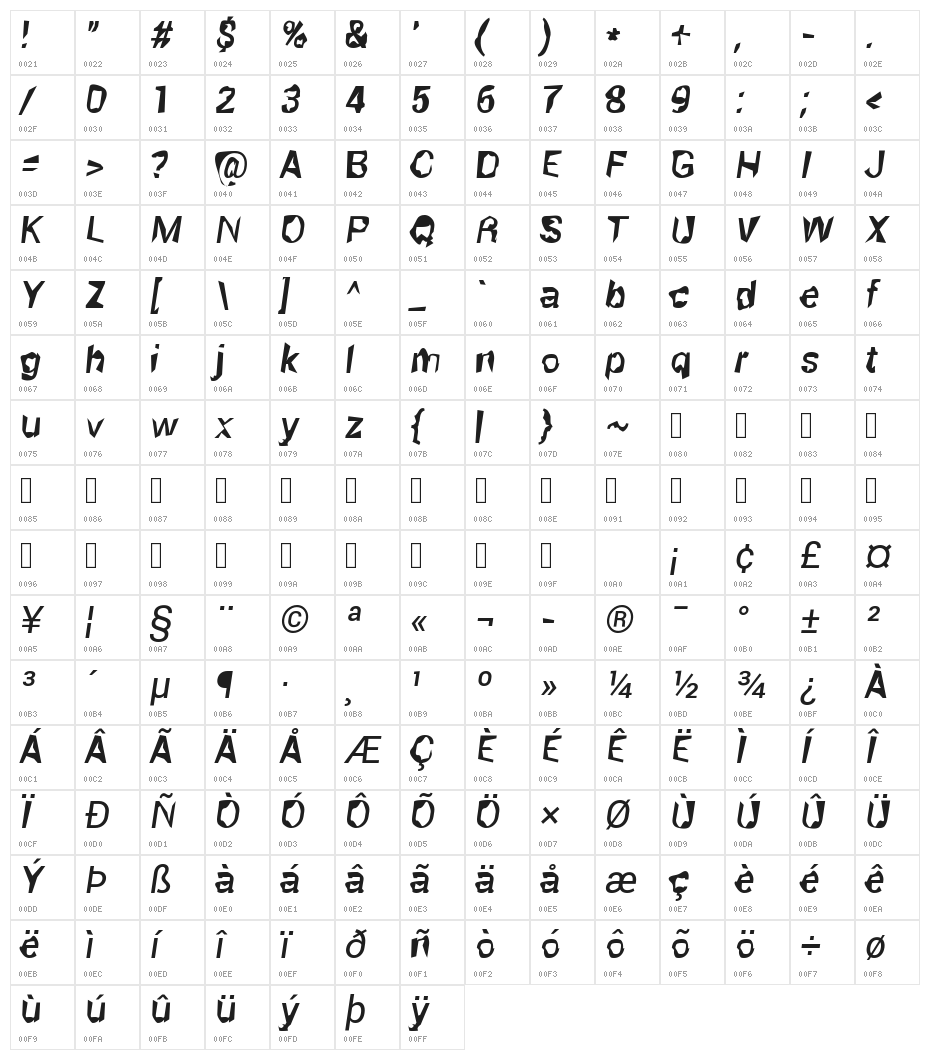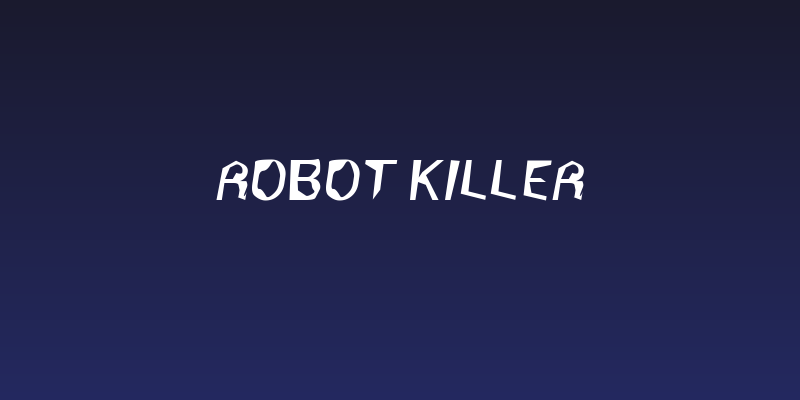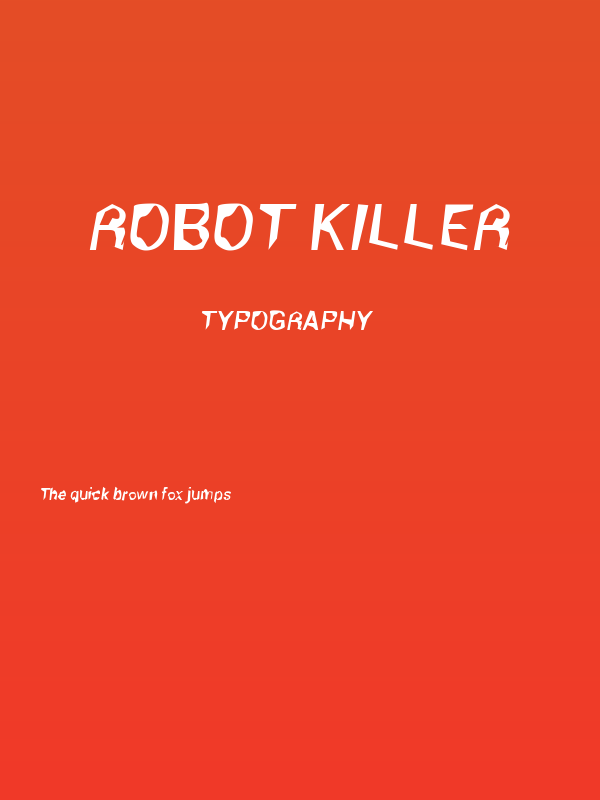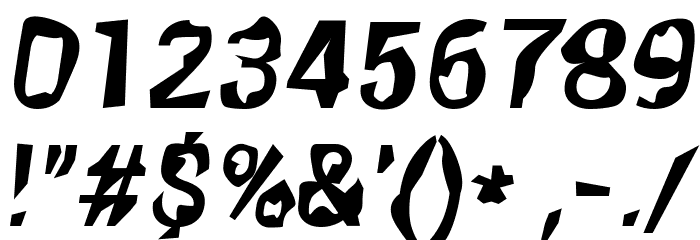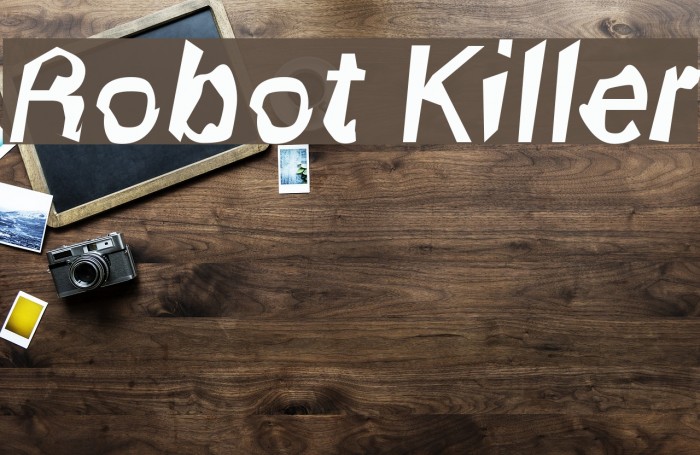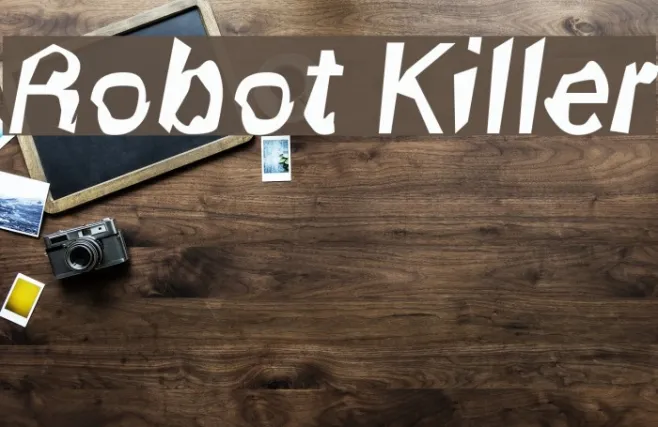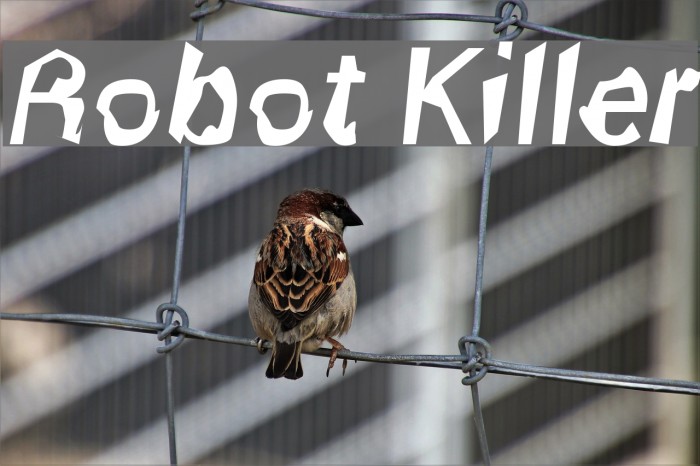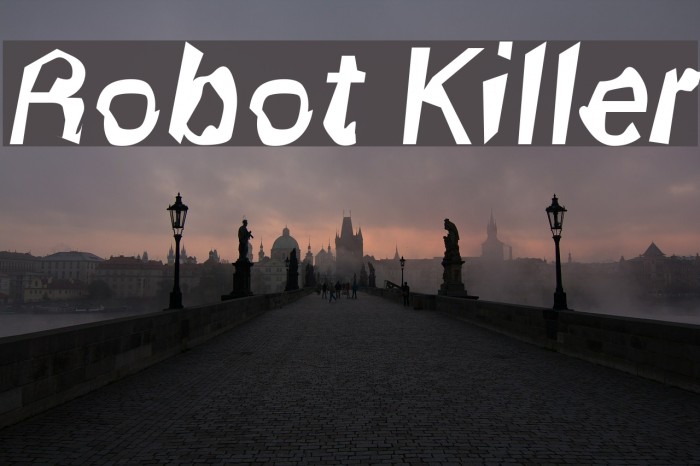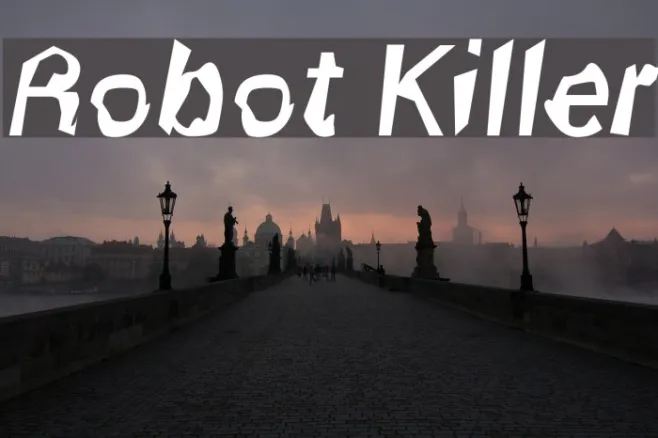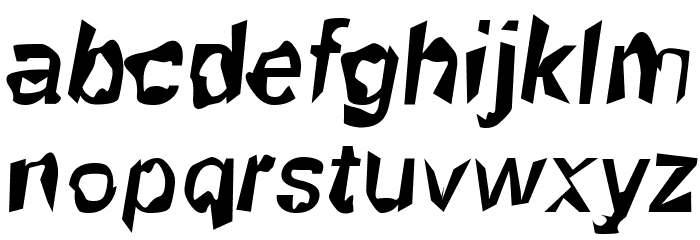
Robot Killer Font
Robot Killer Description
This font features a bold, angular design with a futuristic and edgy aesthetic. The characters are uniquely distorted, giving them a dynamic and aggressive appearance. The uppercase and lowercase letters maintain a consistent style, with sharp edges and irregular shapes that create a sense of movement. The numbers and special characters follow the same design principles, ensuring a cohesive look across all elements. This font is ideal for projects that require a strong, impactful visual presence.
| Proposed Projects | Perfect for video game titles, movie posters, branding for tech companies, and any project needing a modern, aggressive look. |